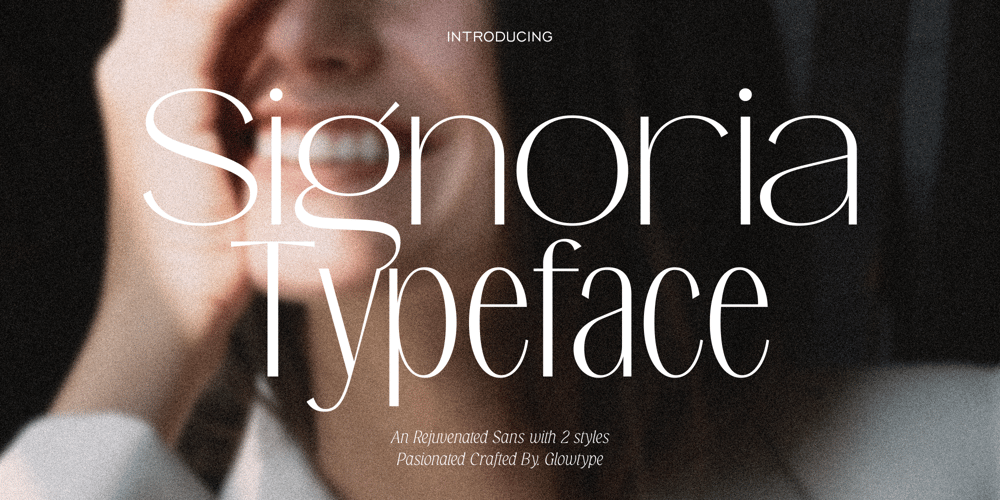
Signoria
Signoria font
Signoria Font Family was designed by Fachrizal Yusuf and published by Glowtype. Signoria contains 2 styles and family package options. Introducing my 4th project, Signoria Typeface a rejuvenated sans to give the beauty, elegance and glamor vibes.Signoria Typeface come with two styles, regular and wide. So you can combo them as you want. This is perfect choice to your crative field, branding, stationery, beauty product, magazine, wedding invitation or anything else.Cheers & enjoy!